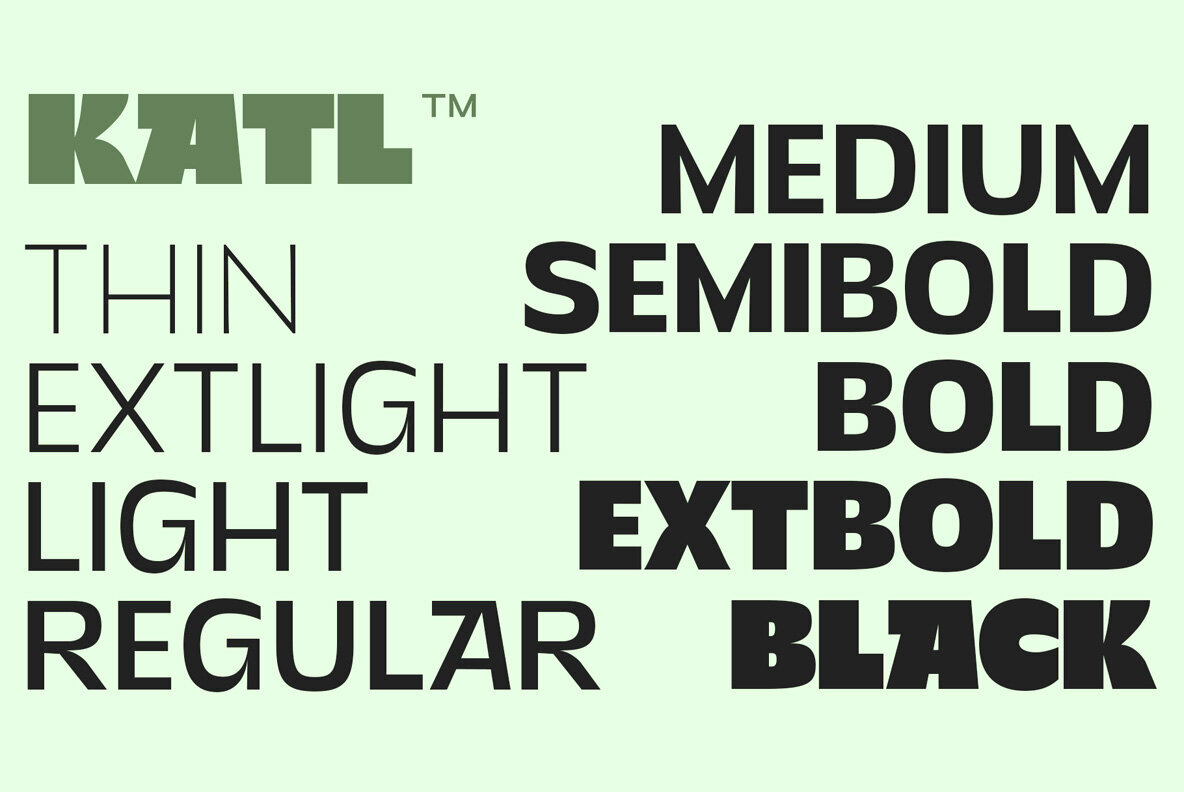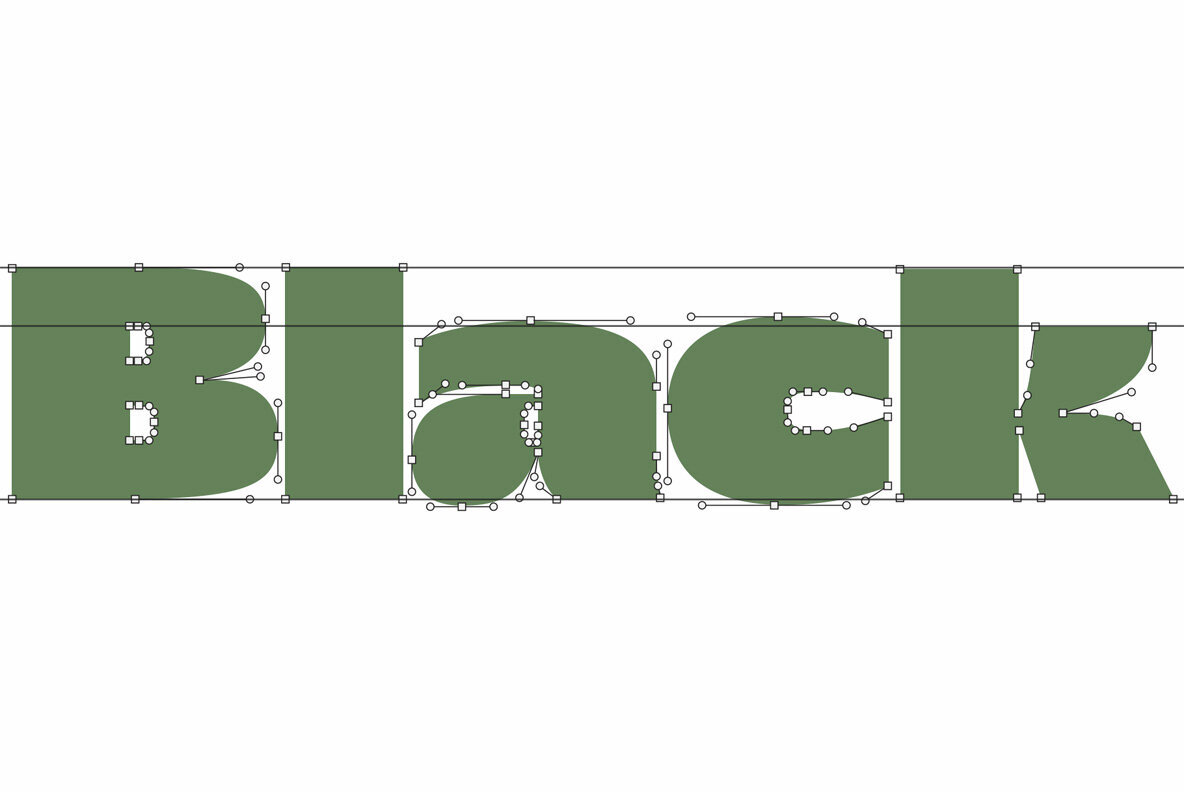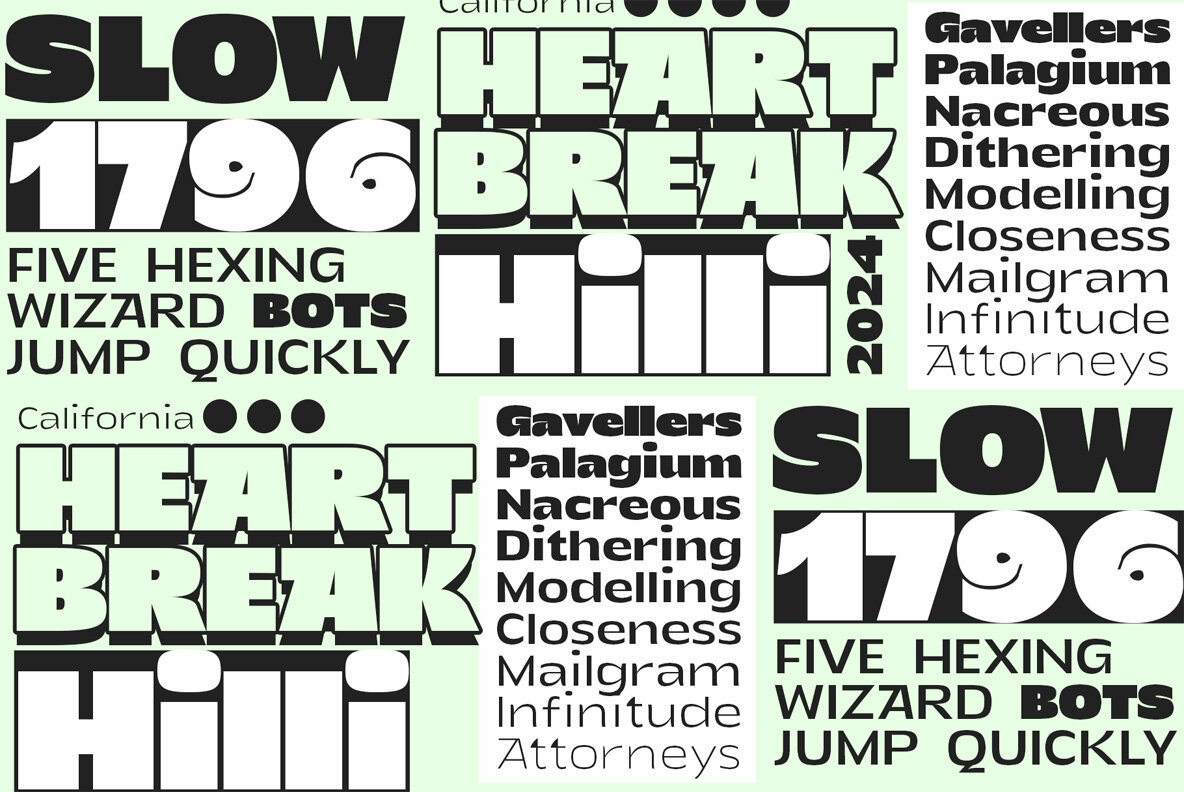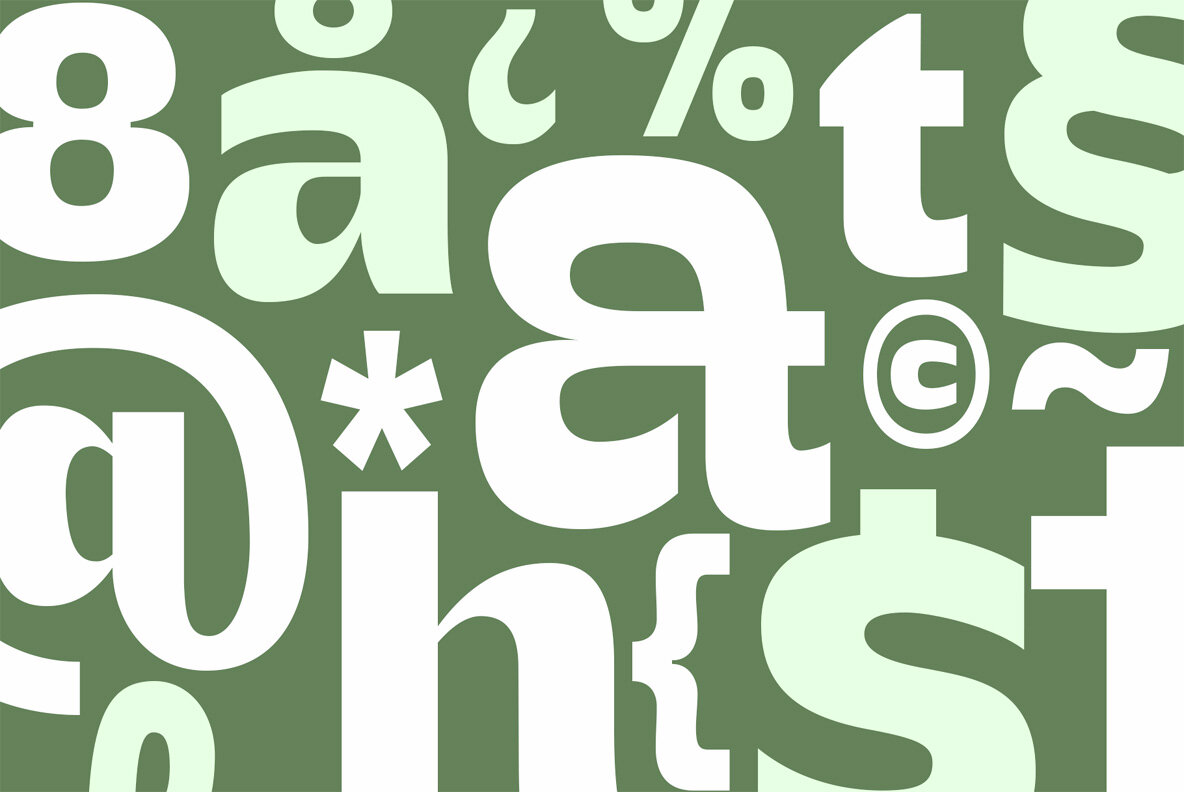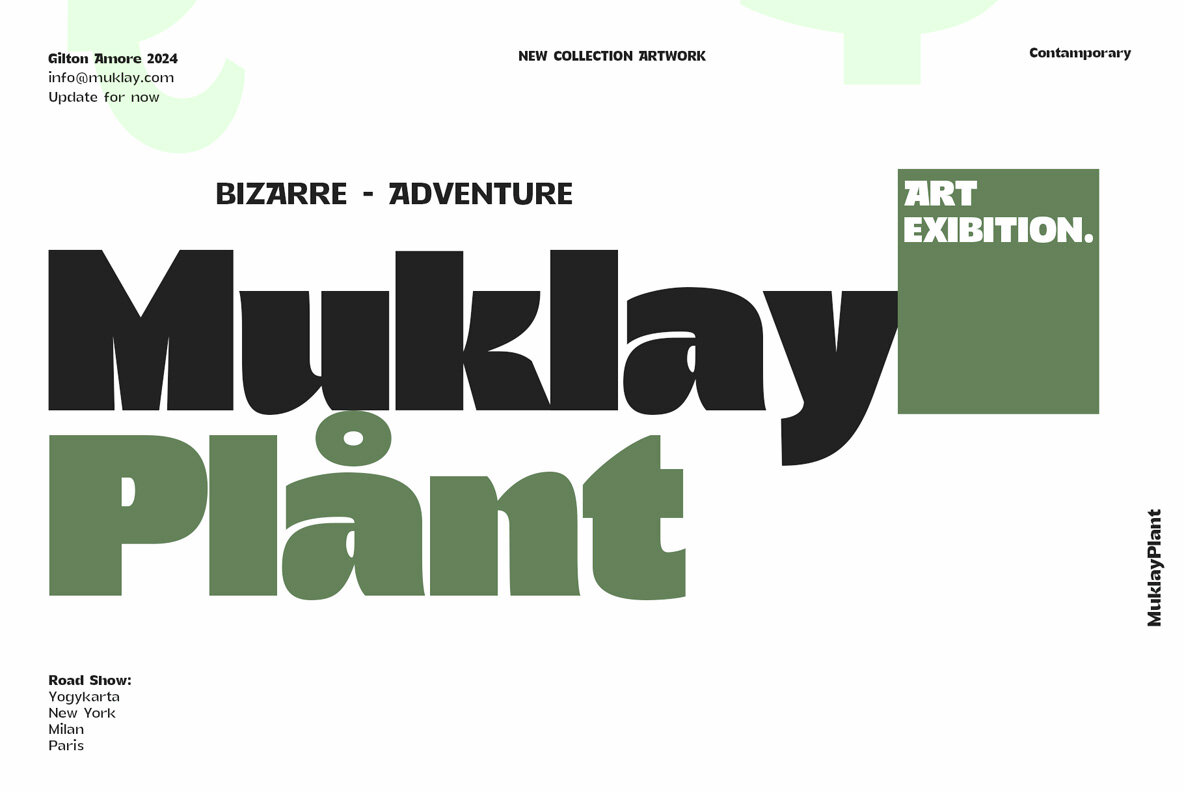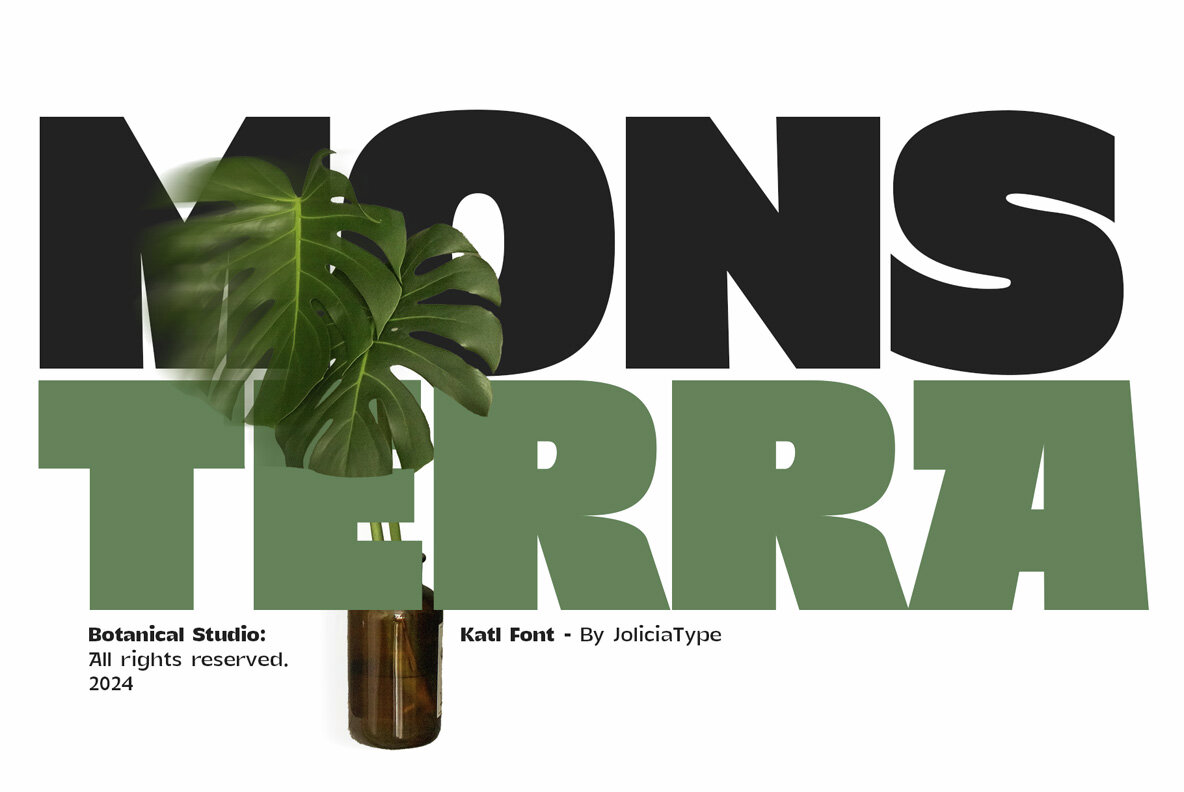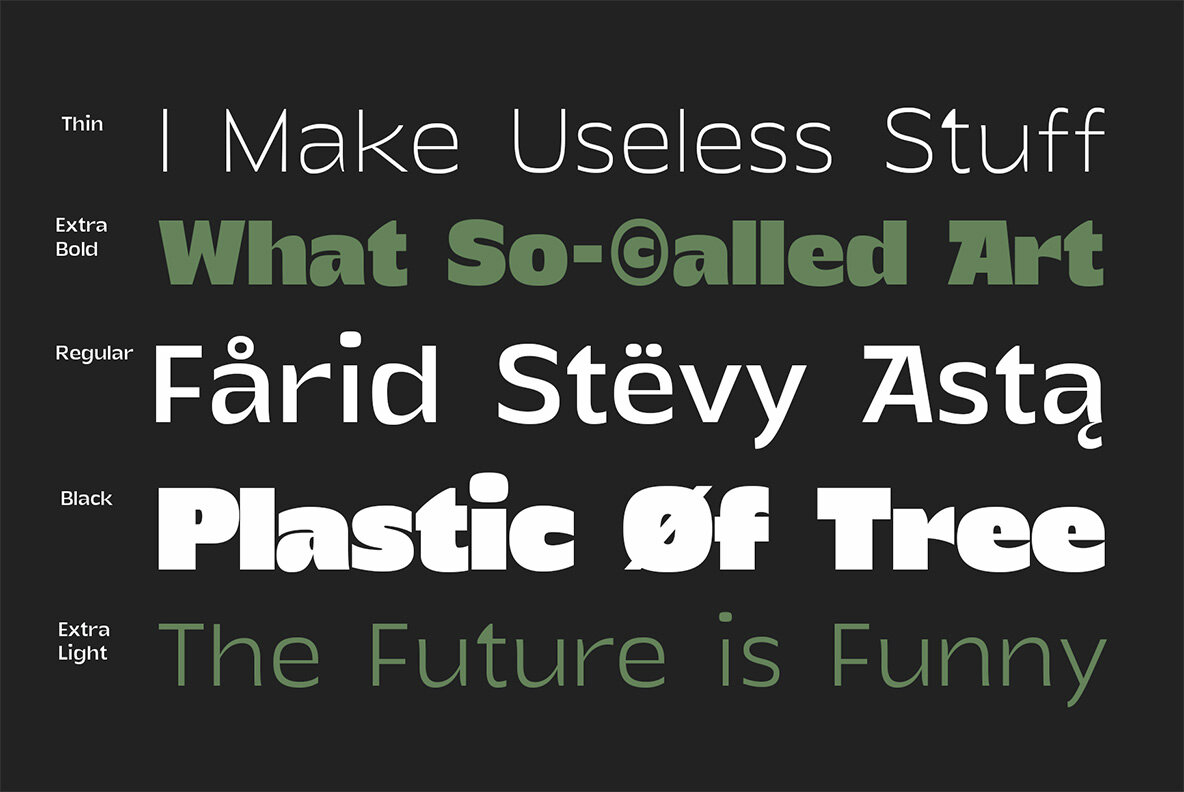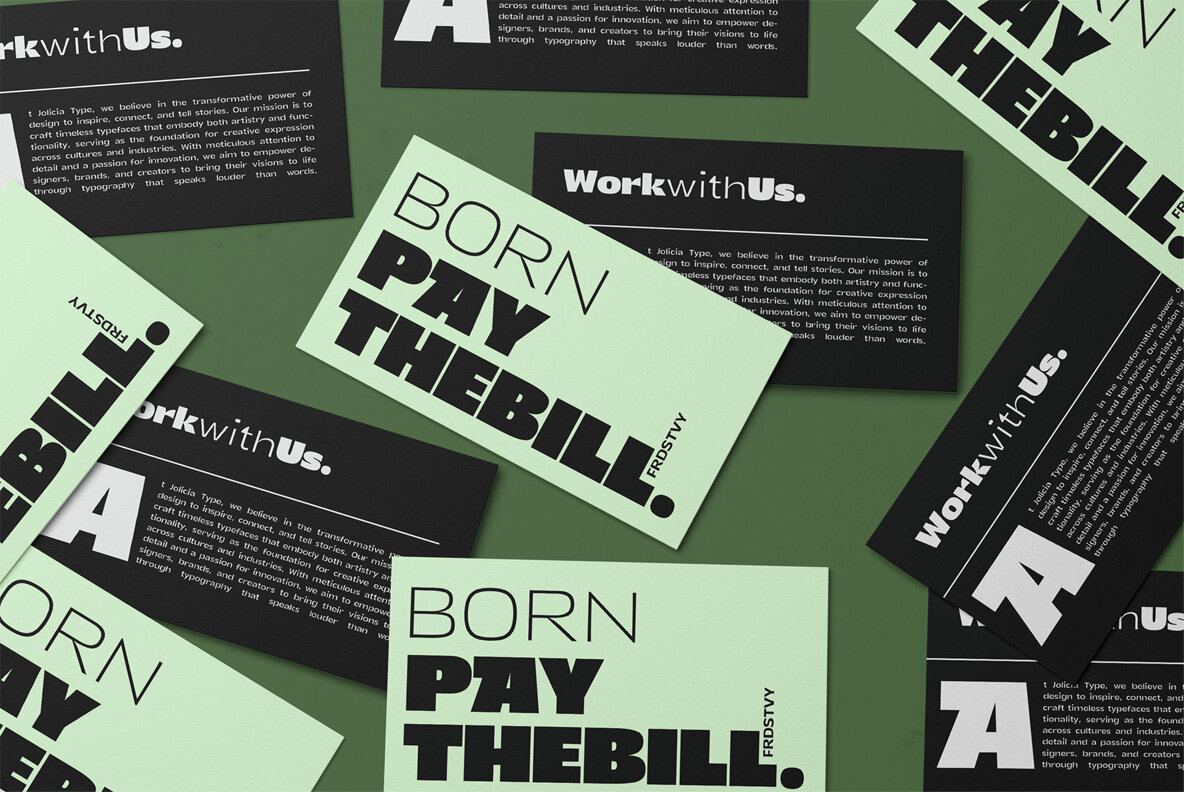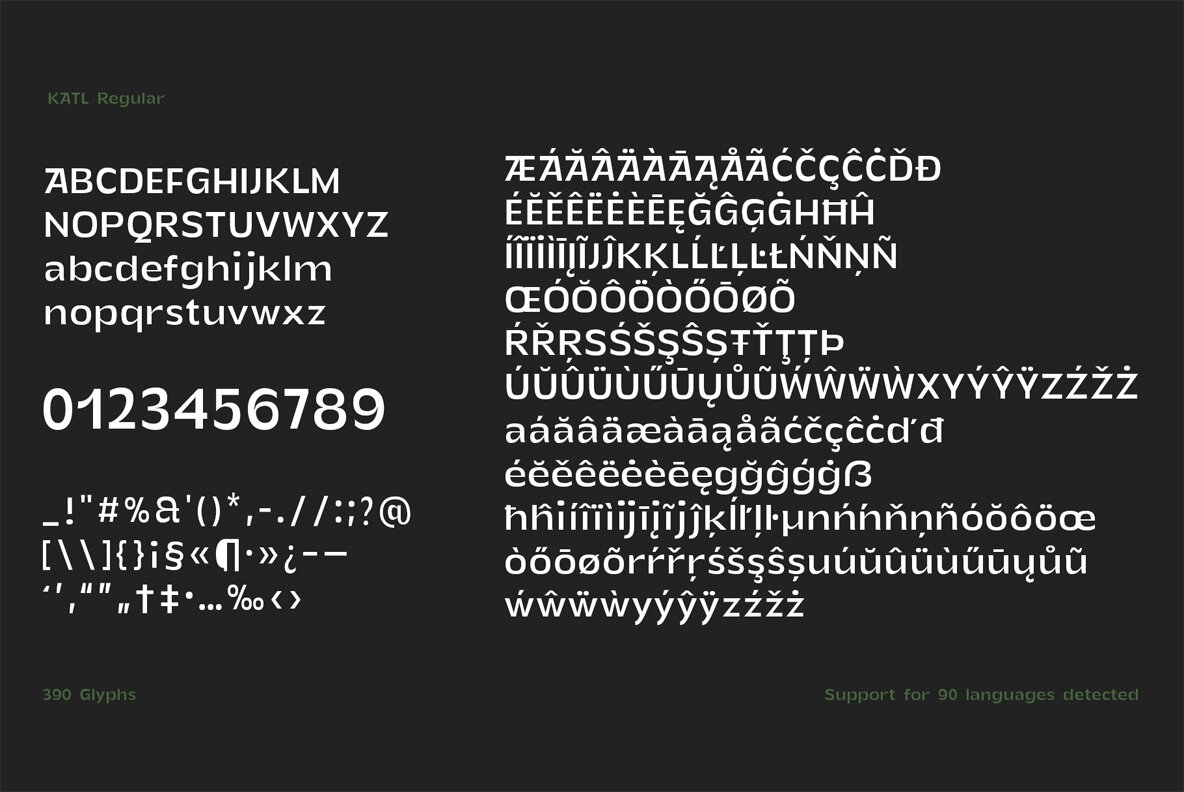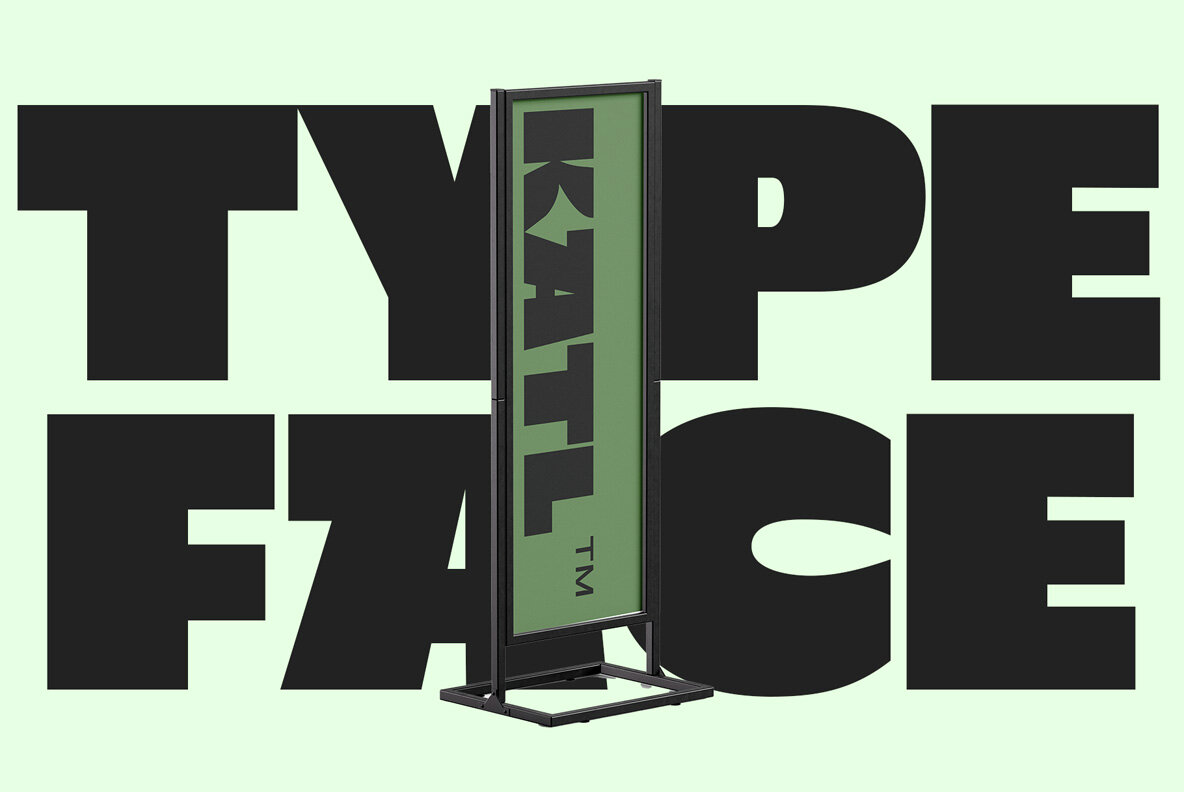
Katl is a sleek and contemporary sans-serif typeface, designed with a modern aesthetic that seamlessly blends simplicity and sophistication. The font offers an impressive range of 9 weights, from the delicate Thin to the commanding Black, ensuring versatility for various design applications.
As a variable font, Katl provides dynamic flexibility, allowing users to fine-tune weights and styles for customized typographic solutions. Perfect for branding, editorial, web design, and more, Katl embodies modernity with precision and elegance.